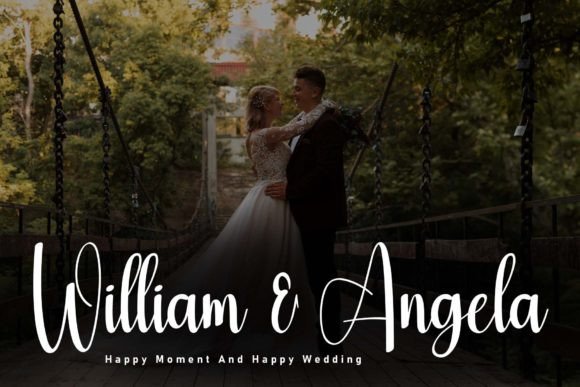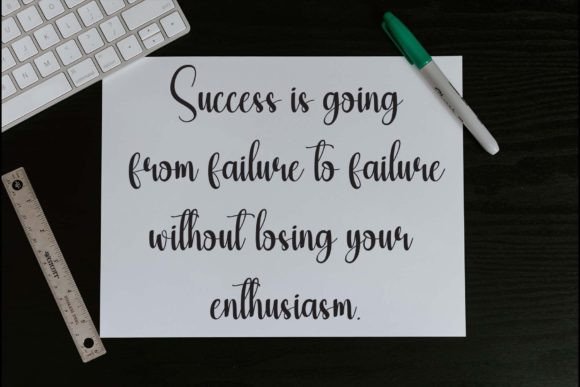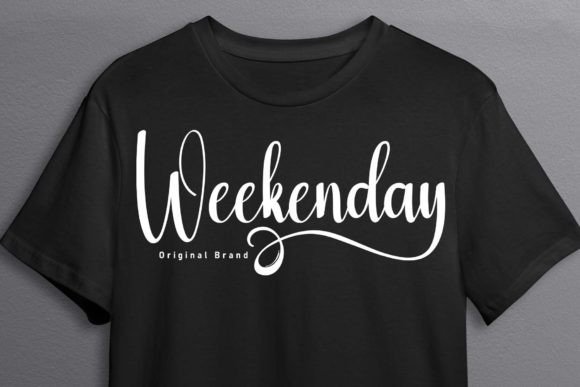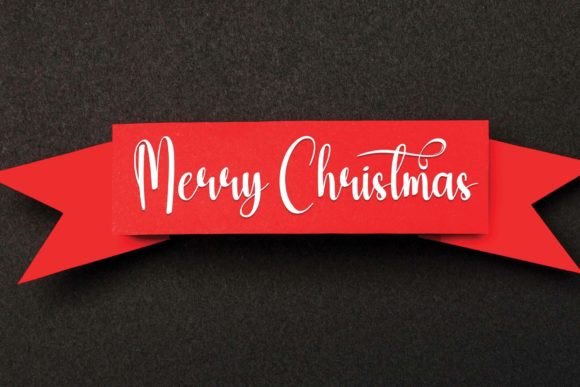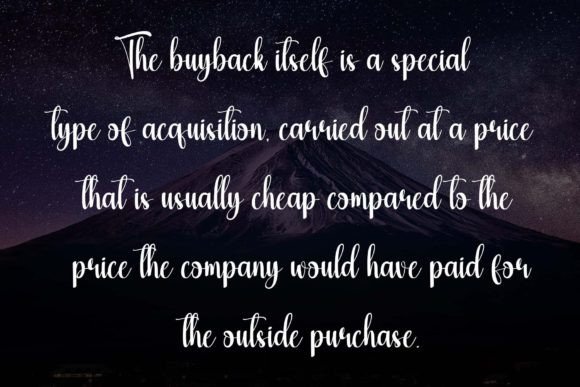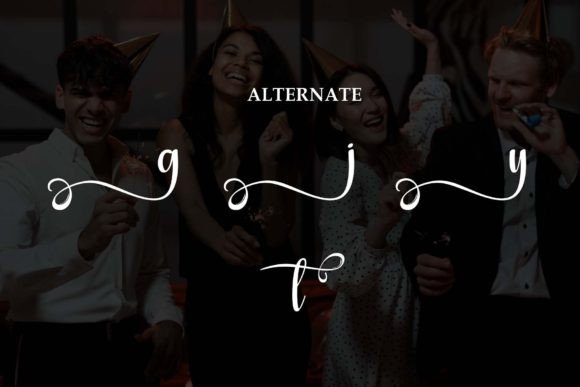
The Perfect Recipe for Creative Success
You’ve spent hours brainstorming, sketching, and perfecting your design project, and it’s finally time to add the finishing touches. But, as you scroll through font options, something feels missing. That’s when you stumble upon the perfect ingredient – a font that elevates your design to new heights.
Meet the Feasting Font, a masterfully designed handwritten font that combines classy calligraphic influences with a fresh, contemporary feel. This exquisite font is the perfect addition to any project, from elegant invitations to modern branding materials. Whether you’re a seasoned designer or a creative newbie, the Feasting Font is a valuable tool that will help you bring your vision to life.
Feasting Font Key Features
- Font Family: A unique, hand-drawn font family designed for various applications, including food and beverage branding, packaging, and advertising.
- Character Set: Includes a wide range of characters, including uppercase and lowercase letters, numbers, punctuation, and special characters, as well as alternate characters and ligatures.
- Unique Characteristics: The Feasting Font features a playful, hand-drawn style with bold lines, rounded shapes, and whimsical flourishes, making it ideal for creating eye-catching and memorable designs.
Feasting Font Review
I recently had the chance to work with Feasting Font, and I have to say, it was an interesting experience. Here are my thoughts.
- ✨ Unique character set: Feasting Font has a distinct, hand-drawn feel that can add a touch of whimsy to your designs.
- ✨ Friendly ligatures: The font includes a variety of ligatures that help to create a sense of flow and connection between words.
- ✨ Good for headings: Feasting Font is particularly well-suited for use as a heading font, where you want to draw attention to a particular message or idea.
- ⚠️ Limited readability: While Feasting Font looks great in certain contexts, it can be difficult to read in smaller sizes or at a distance.
- ⚠️ Limited language support: The font’s character set is relatively limited, which may make it less suitable for use in languages that require a wide range of characters.
- ⚠️ May not be suitable for body text: Due to its unique character set and limited readability, Feasting Font may not be the best choice for use as a body text font.
Overall Impression:
Feasting Font is a unique and eye-catching font that can add a touch of personality to your designs. However, it may not be the best choice for every project, and it’s essential to carefully consider its limitations before using it in your work.
Getting the Most Out of Feasting Font
To get the most out of Feasting Font, use it in conjunction with bold or italic styles to add emphasis to your text. You can also experiment with different font sizes and colors to create a visually appealing effect.
Feasting Font is commonly used for food-related branding, packaging, and advertising. It’s also used for creating invitations and other event-related materials.